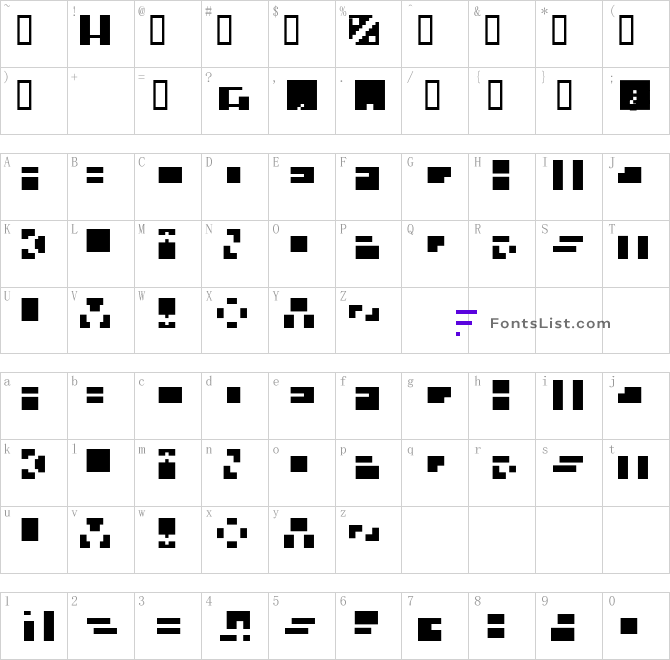
- Font Name:Caracterielle
Caracterielle.ttf is a very beautiful artistic font, Caracterielle.ttf is widely used in the design and printing of various books and pictures,Caracterielle.ttf has a strong visual impact,Caracterielle.ttf is a commonly used font in newspapers, magazines and books, and is used in posters, e-commerce Poster design, store design, logo design, font design and other fields.Caracterielle.